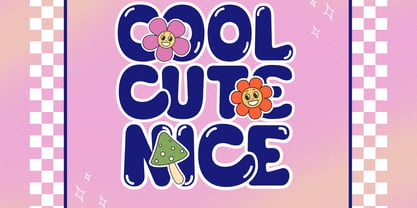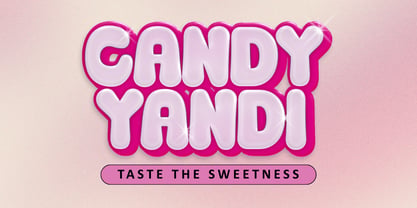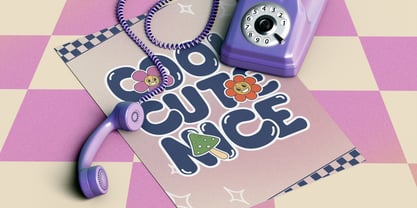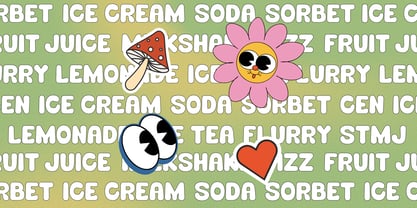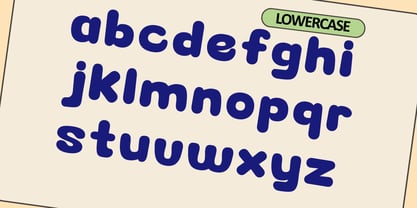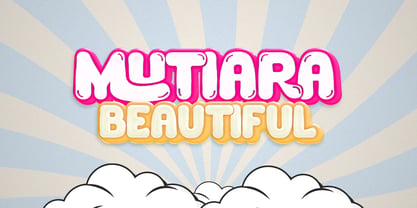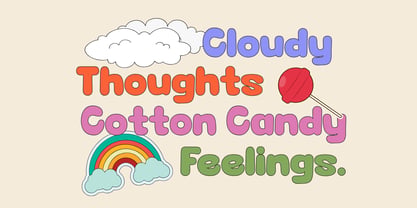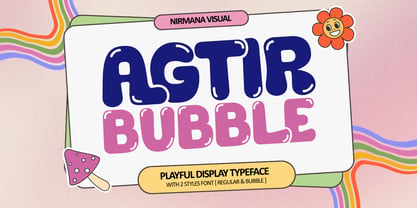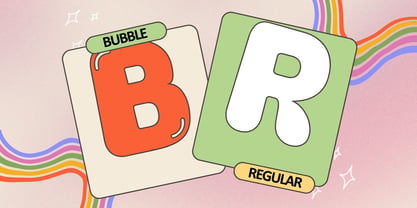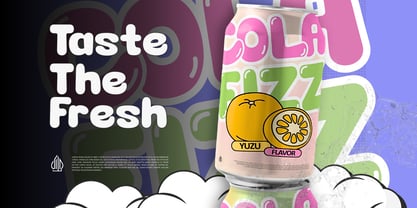
Bubble Tirga
by Nirmana Visual
The Bubble Tirga Font Family was designed by Sigit Dwipa and published by Nirmana Visual. Bubble Tirga contains 2 styles and family package options. More about this family
Agtir Bubble is a playful bubble-style font designed to bring joy and personality to your designs. With its rounded, soft shapes and cheerful look, it’s perfect for logo branding, product packaging, labels, kids-themed projects, social media graphics, and more. Agtir Bubble adds a fun, friendly vibe that helps brands stand out while keeping designs light, bold, and memorable. Perfect for creative projects that need a touch of happiness and charm.
Designers: Sigit Dwipa
Current Foundry: Nirmana Visual